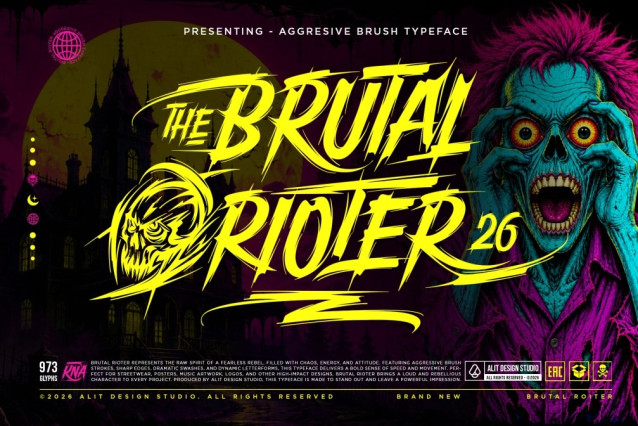
Brutal Rioter Typeface
Brutal Rioter represents the raw spirit of a fearless rebel [Brutal Rioter 1.jpg]. Produced by Alit Design Studio, this aggressive brush typeface is saturated with chaos, energy, and an unapologetic attitude [Brutal Rioter 1.jpg]. Defined by its rapid brush strokes, razor-sharp edges, and dynamic letterforms, the font delivers a bold, visceral sense of speed and movement [Brutal Rioter 1.jpg]. It is meticulously crafted for designers who need their typography to scream rather than whisper, ensuring your project stands out and leaves a powerful, lasting impression.
Ideal Applications:
Because of its high-impact, gritty aesthetic, Brutal Rioter thrives in edgy and extreme design environments. It is the ultimate typographic tool for:
• Music & Entertainment: Underground hardcore punk festival flyers, heavy metal album covers, and chaotic band merchandise.
• Horror & Cinema: Dark, psychological horror movie posters and thriller title cards .
• Fashion & Apparel: Urban streetwear graphics, skate brand logos, and rebellious clothing lines.
• Branding & Packaging: High-energy energy drink labels, extreme sports branding, and bold logo design.